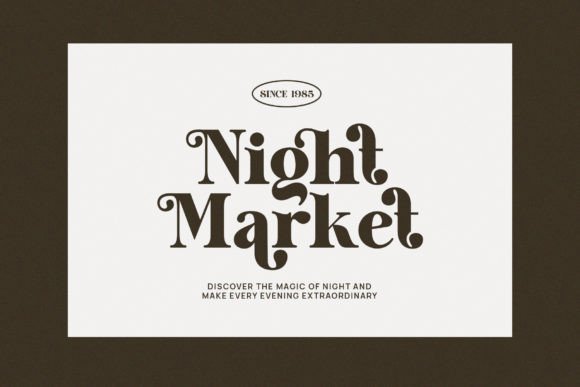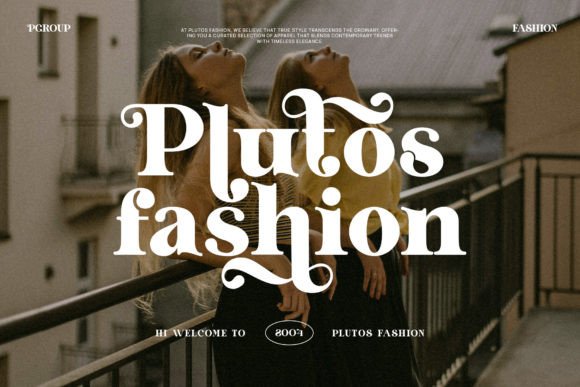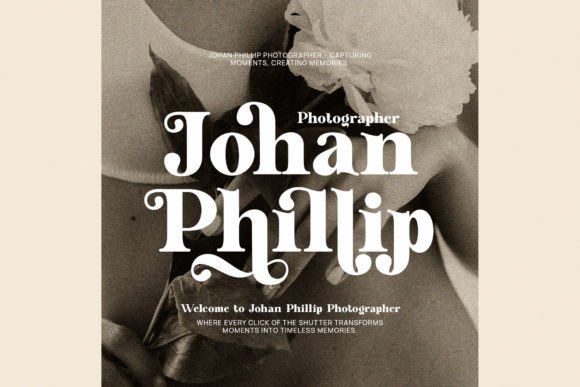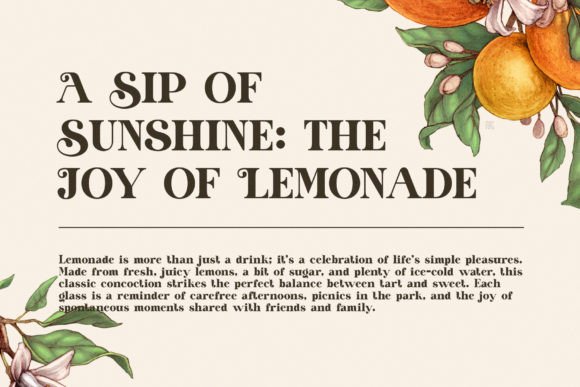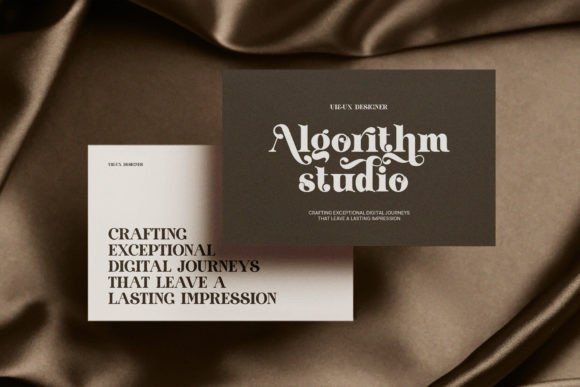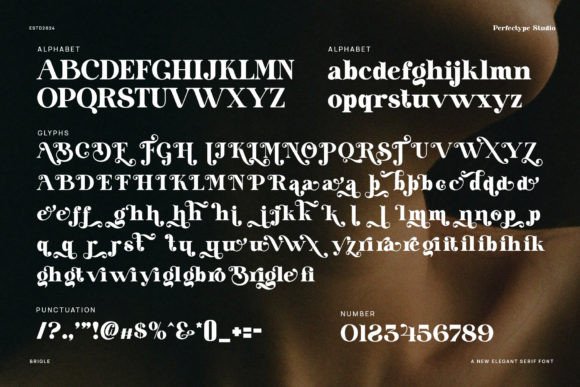
Introducing Brigle Font: Elevate Your Designs with Elegance and Luxury
Are you looking for a font that exudes sophistication and refinement for your branding and logo designs? Look no further than Brigle Font, a stunning serif font crafted with elegance and luxury in mind. In this article, we’ll explore the features and benefits of Brigle Font, and why it’s the perfect choice for designers and crafters seeking to elevate their designs.
The Essence of Brigle Font
Brigle Font is a masterpiece of typography, designed to bring a touch of class and sophistication to any design project. Its serif style gives it a timeless and traditional feel, while its elegant lines and curves make it perfect for high-end branding and logo designs. Whether you’re working on a luxury brand, a wedding invitation, or a premium product packaging, Brigle Font is sure to impress.
Unique Features of Brigle Font
So, what sets Brigle Font apart from other fonts? Here are some of its unique features:
- Ligatures and Alternates: Brigle Font comes equipped with a range of beautiful and unique ligatures and alternate options. These allow you to add an extra layer of elegance and customization to your designs, making them truly stand out.
- High Readability: Despite its elegant design, Brigle Font is also highly readable, making it perfect for body text and longer content. This means you can use it across a range of design projects, from branding and logos to social media posts and advertisements.
- Versatility: Brigle Font is incredibly versatile, and can be used for a wide range of design projects, including:
- Branding projects
- Logos
- Social media posts
- Advertisements
- Labels
- Product packaging
- Photography
- Wedding designs
- Watermarks
- Invitation product designs
- Stationery
Why Choose Brigle Font?
With so many fonts available, why should you choose Brigle Font for your design projects? Here are just a few compelling reasons:
- Elegance and Sophistication: Brigle Font is designed to bring a touch of elegance and sophistication to your designs. Its classic serif style and elegant lines make it perfect for high-end branding and logo designs.
- Customization: With its range of ligatures and alternate options, Brigle Font allows you to add a unique touch to your designs, setting them apart from the competition.
- Readability: Brigle Font is highly readable, making it perfect for body text and longer content.
- Versatility: Brigle Font can be used across a wide range of design projects, making it a valuable addition to any designer’s toolkit.
Tips for Using Brigle Font
Here are a few tips for getting the most out of Brigle Font:
- Use it for Headings and Titles: Brigle Font is perfect for headings and titles, where its elegant design can really shine.
- Experiment with Ligatures and Alternates: Don’t be afraid to experiment with Brigle Font’s ligatures and alternate options to add a unique touch to your designs.
- Pair it with Other Fonts: Brigle Font pairs well with a range of other fonts, so don’t be afraid to experiment with different combinations to find the perfect look for your design.
In conclusion, Brigle Font is a stunning serif font that is perfect for designers and crafters seeking to elevate their designs with elegance and luxury. With its unique features, versatility, and high readability level, Brigle Font is sure to become a valuable addition to any designer’s toolkit. Whether you’re working on a branding project, logo design, or social media post, Brigle Font is the perfect choice for adding a touch of sophistication and refinement.